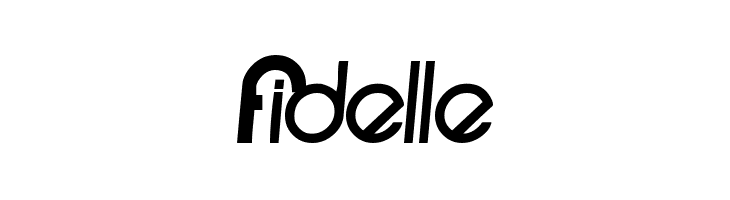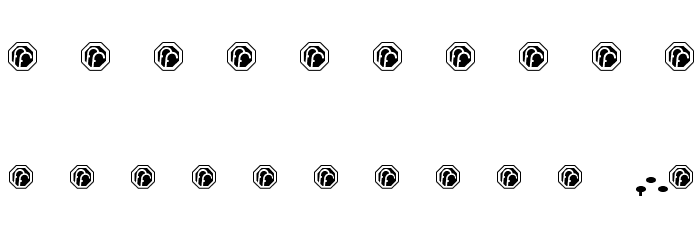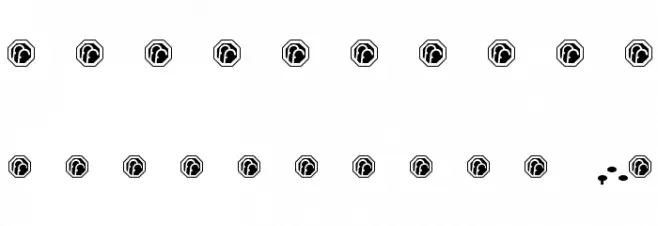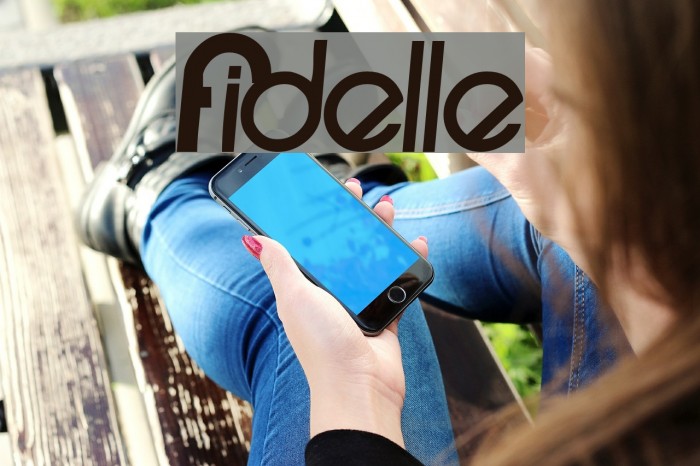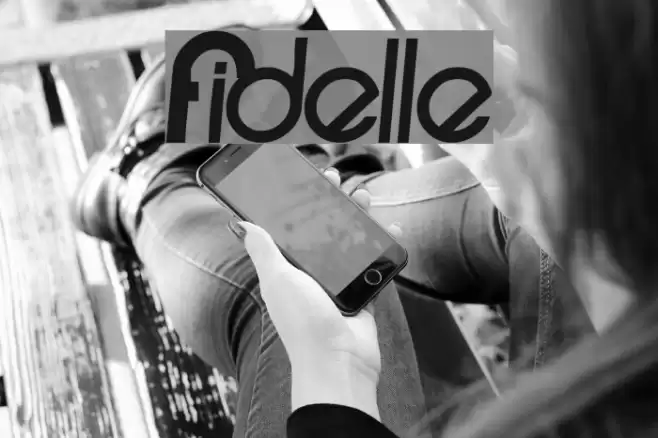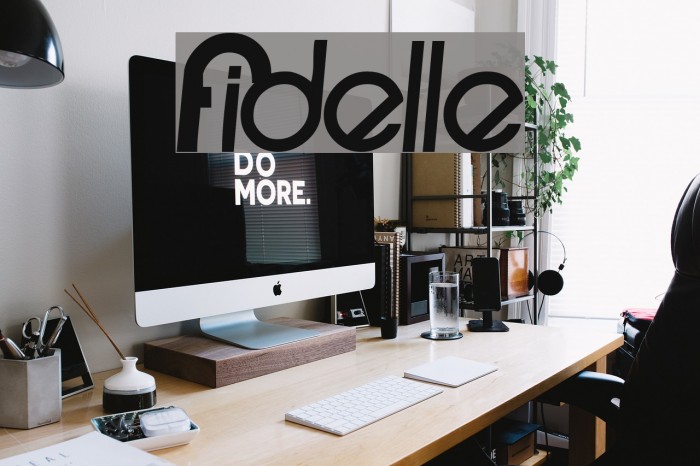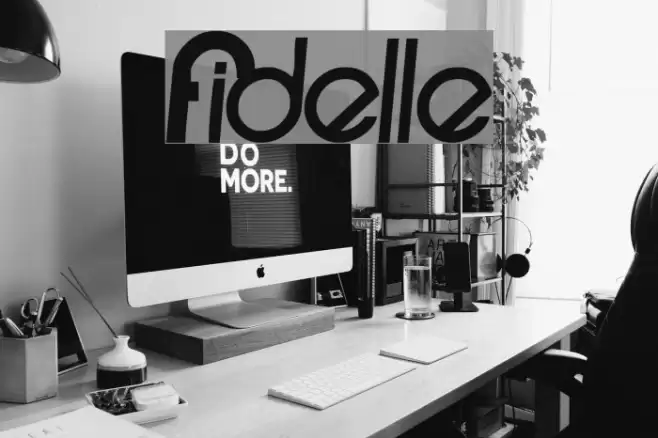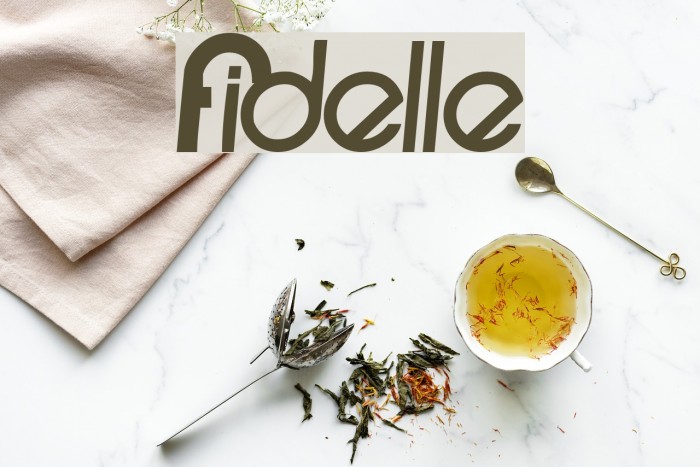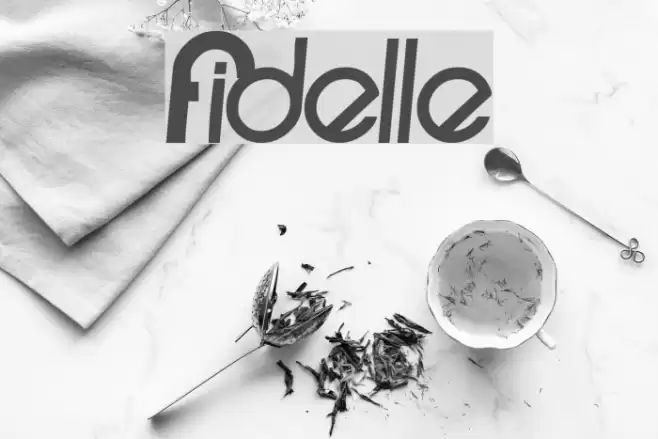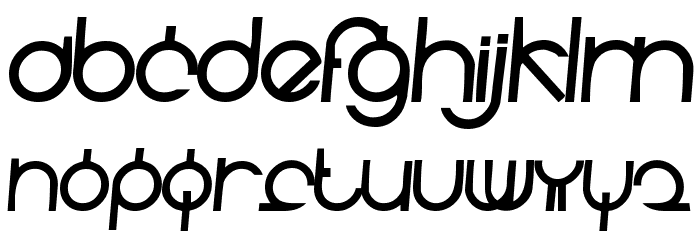
Fidelle Font
Fidelle Description
This font features a bold and modern design with a unique geometric flair. The characters are constructed with thick, rounded strokes that give a sense of stability and strength. The uppercase and lowercase letters share a consistent style, with some characters like 'a', 'g', and 'y' having distinctive loops and curves that add a playful touch. The numbers are bold and clear, making them easily readable. Special characters are designed with the same boldness, ensuring consistency throughout. This font is ideal for making a strong visual impact.
| Proposed Projects | Ideal for branding, logos, headlines, and posters where a strong visual impact is desired. |